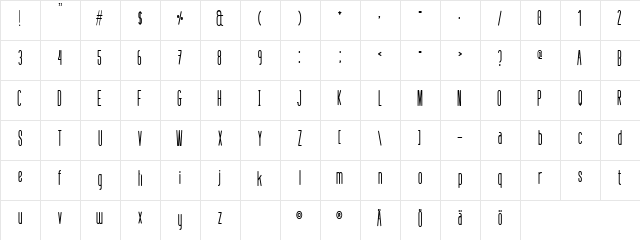
defatted milk Condensed
| Foundry | Nils von Blanc |
| Designer | Nils von Blanc |
Design Context for defatted milk Typeface
defatted milk offers clean, dependable letterforms without strong stylistic allegiance, making it a practical choice for designers who need flexibility. Its narrow stance lets it pack a punch even in space-constrained designs.